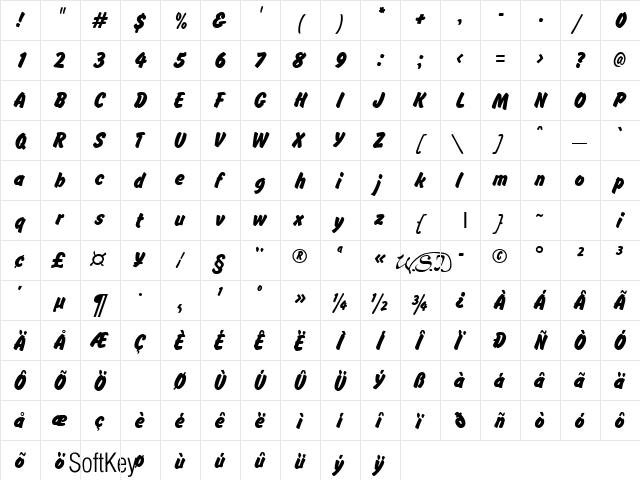
Brush Hand Regular
Design Context for Brush Hand Typeface
Brush Hand brings a calligraphic fluidity to the page — its connecting strokes and expressive curves give it an unmistakably human quality.
Font Pairing: Combine Brush Hand with a simple geometric sans for maximum contrast — the tension between flowing curves and clean structure is a classic typographic pairing.
Pro Tip: Pair Brush Hand with a clean sans-serif for supporting text. The contrast between fluid script and geometric structure creates an elegant typographic hierarchy.